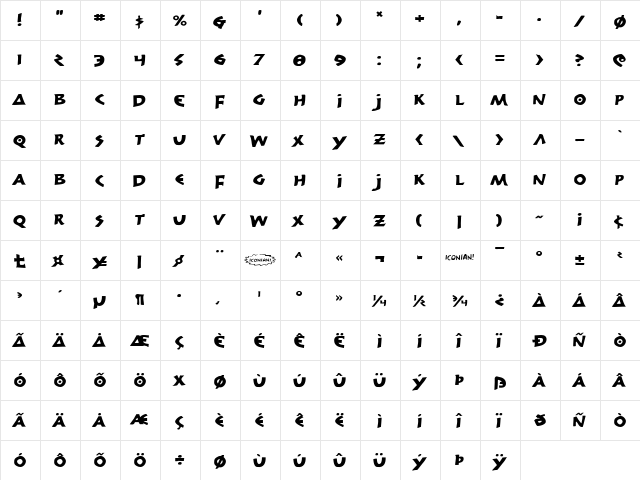
300 Trojans Expanded Expanded
Design Context for 300 Trojans Expanded Typeface
300 Trojans Expanded is a composed and adaptable typeface that performs quietly and consistently across a wide range of design contexts.